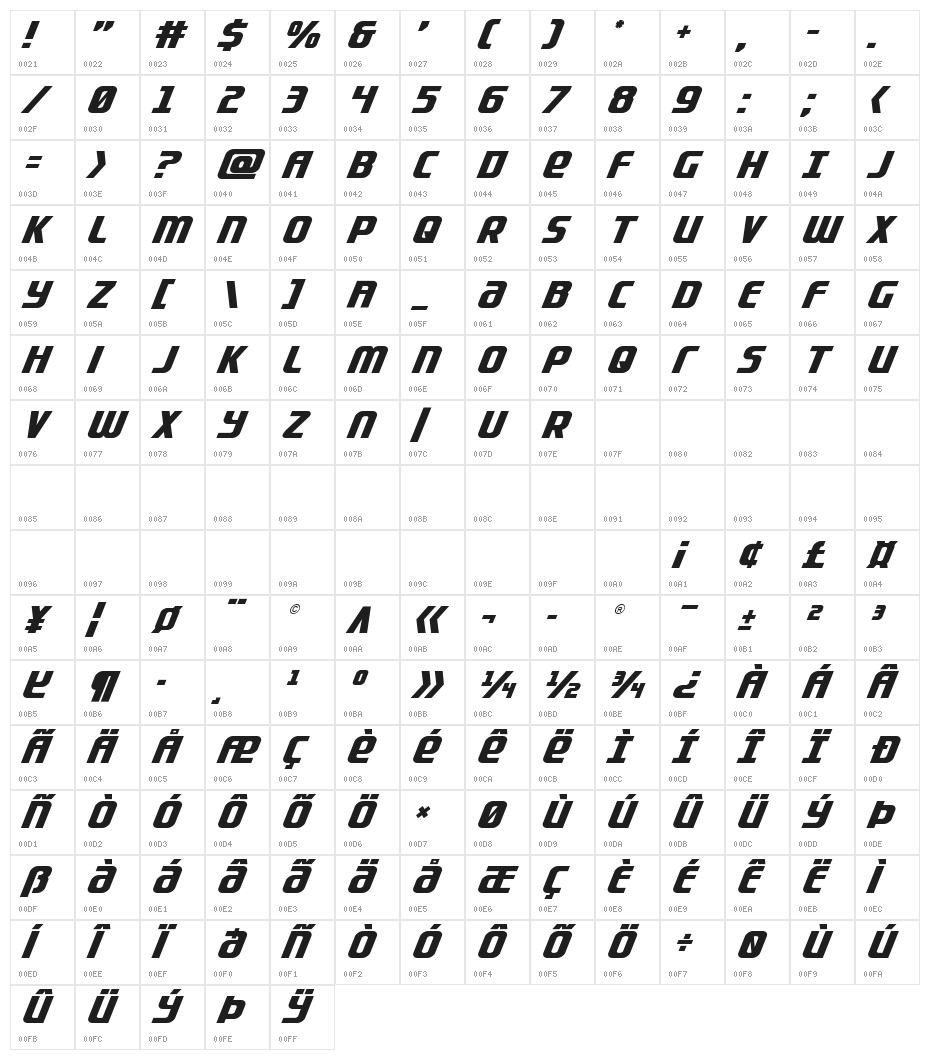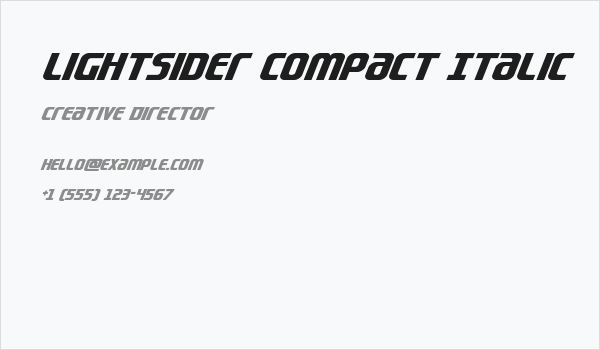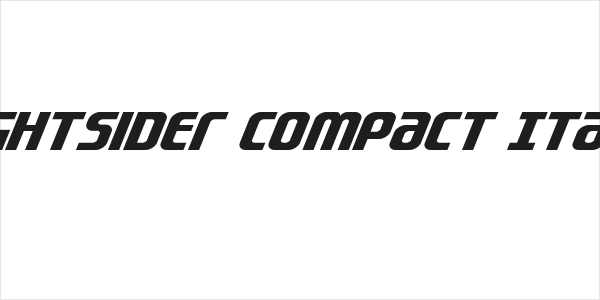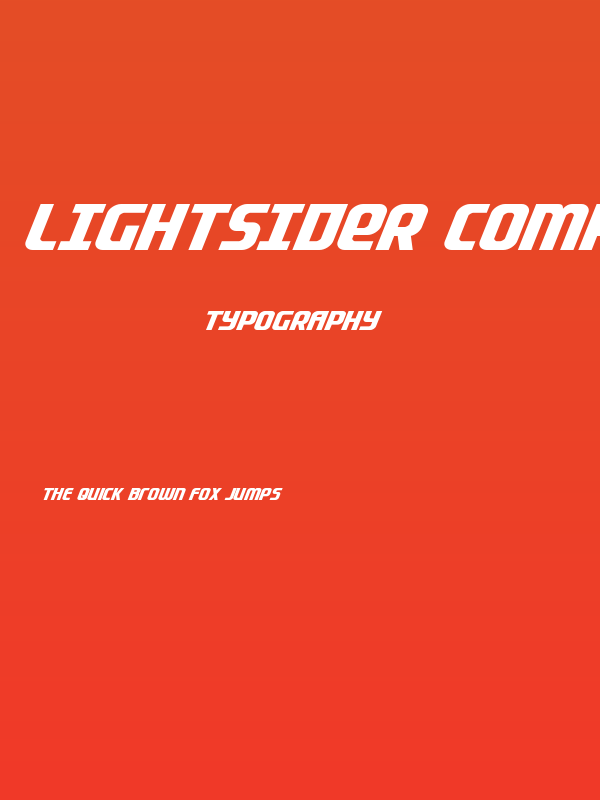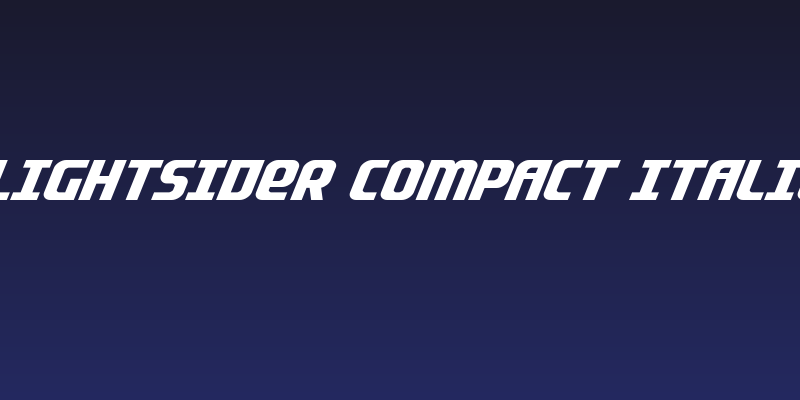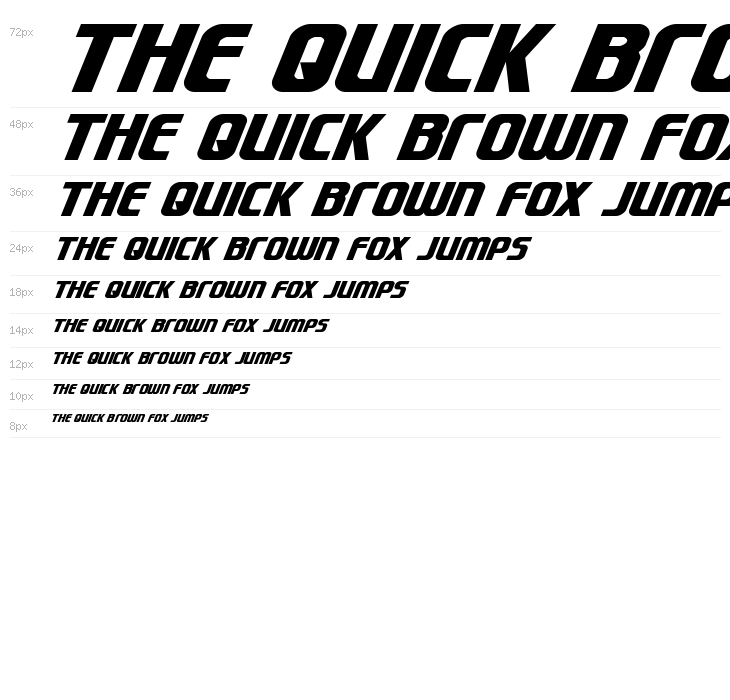
Lightsider Compact Italic Font
Lightsider Compact Italic Description
This font features a dynamic and modern design with a distinct italic slant, giving it a sense of motion and energy. The characters are bold and compact, with a sleek, futuristic appearance. The strokes are consistent in thickness, providing a uniform look across all characters. The uppercase and lowercase letters maintain a cohesive style, while the numerals and special characters are designed to match the overall aesthetic. This font is ideal for projects that require a contemporary and energetic feel.
| Proposed Projects | Ideal for sports branding, technology logos, dynamic posters, and modern advertising campaigns. |